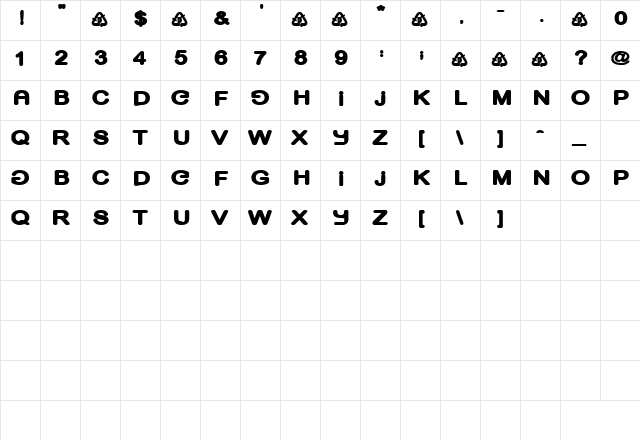
BrineShrimp Regular
Design Context for BrineShrimp Typeface
BrineShrimp offers clean, dependable letterforms without strong stylistic allegiance, making it a practical choice for designers who need flexibility.